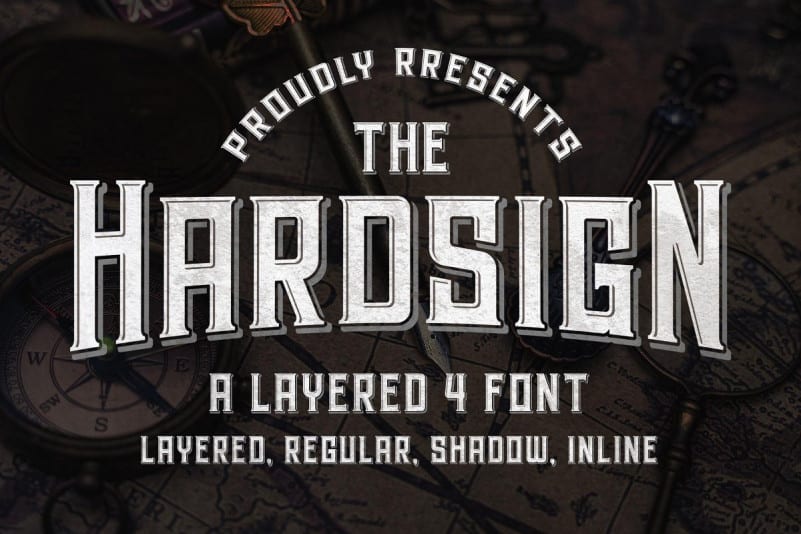
Hardsign Display Font
Hardsign Font come with beautiful alternate, so this font combination allows you to easily build beautiful vintage designs. Hardsign includes 4 styles: Hardsign Inline, Hardsign Shadow, Hardsign Layered and Hardsign Regular.
This font is a vintage font that perfect for vintage logo design, poster, vintage label, headlines or packaging design.